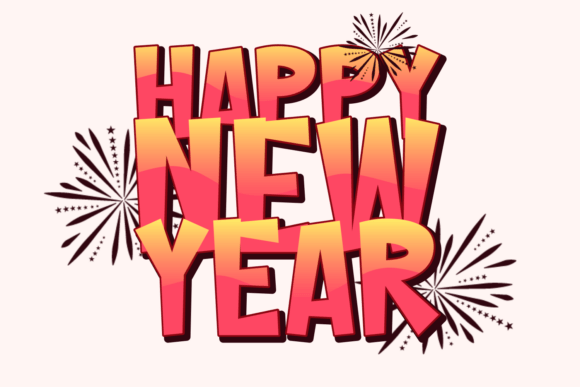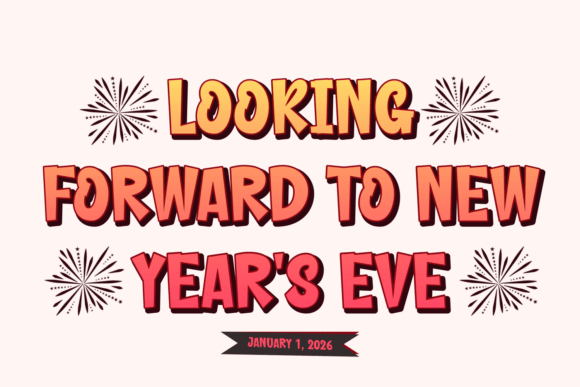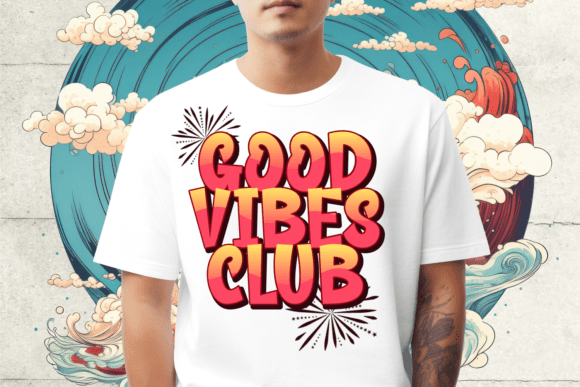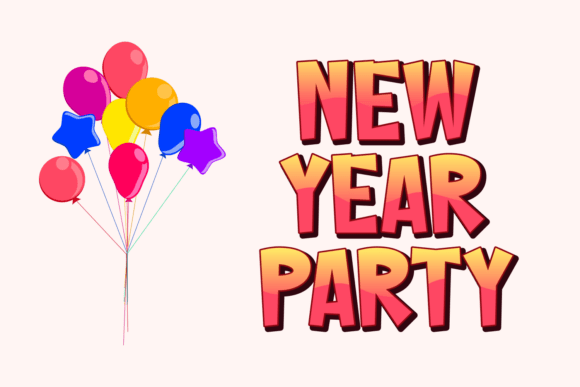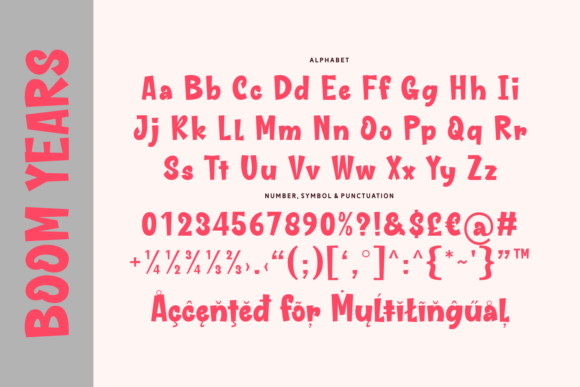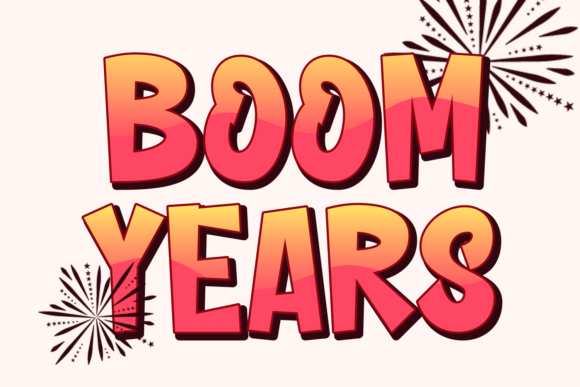
Introducing Boom Years Display Font: The Urban Typography Sensation
Are you ready to take your brand identity or creative project to the next level with a typographic sensation that exudes urban grit and playfulness? Look no further than the Boom Years Display Font, a groundbreaking typeface that seamlessly blends the raw allure of Graffiti Fonts with the whimsical charm of Cartoon Fonts.
A Stunning Representation of Urban Calligraphy
Boom Years Display Font is a masterpiece born from the creative minds at 7ntypes, a team of innovative designers who have successfully married potency and whimsy to create a truly unique and versatile font. This captivating Cartoon Style font is ideal for designers and crafters looking to infuse vigor into their brand identity or add a touch of urban flair to comic book scripts, advertisements, or product packaging.
Key Features of Boom Years Display Font
• Urban Calligraphy: Boom Years Display Font is a stunning representation of urban calligraphy, perfect for those who want to add a touch of edginess to their designs.
• Graffiti and Cartoon Fusion: This distinctive font seamlessly blends the gritty allure of Graffiti Fonts with the idiosyncratic appeal of Cartoon Fonts, making it a standout in the world of typography.
• Multilingual Support: Boom Years Display Font offers multilingual support, making it an excellent choice for global brands or projects that require a wide range of languages.
• Regular Fonts: The font comes with regular fonts, ensuring complete practicality for print, particularly when it comes to crafting distinctive T-shirts or other unique products.
• Versatility: Boom Years Display Font is an adaptable new tool in your typographic kit, suitable for a wide range of applications, from attention-grabbing advertisements to unique product packaging.
Boom Years Display Font is a perfect tool for designers and crafters looking to create attention-grabbing designs that stand out from the crowd. Whether you’re working on a brand identity project, comic book script, or product packaging, this font is sure to leave a lasting impression.
Why Choose Boom Years Display Font?
• Unique and Original: Boom Years Display Font is a truly groundbreaking typeface that offers a fresh and original take on urban typography.
• Ease of Use: The font is easy to use and integrate into your designs, making it a convenient addition to your typographic kit.
• High-Quality Design: Boom Years Display Font is designed with high-quality and precision, ensuring that your designs look professional and polished.
Tips for Using Boom Years Display Font
• Experiment with Colors: Boom Years Display Font looks great in bold and bright colors, so don’t be afraid to experiment and find the perfect hue for your design.
• Mix and Match: Try pairing Boom Years Display Font with other fonts to create a unique and eye-catching design.
• Play with Sizes: The font is versatile and can be used in a range of sizes, from small and subtle to large and bold.
In conclusion, Boom Years Display Font is a game-changing typeface that is sure to revolutionize the world of urban typography. With its unique blend of Graffiti and Cartoon Fonts, multilingual support, and versatility, this font is perfect for designers and crafters looking to create attention-grabbing designs that stand out from the crowd. So why wait? Get your hands on Boom Years Display Font today and take your designs to the next level!